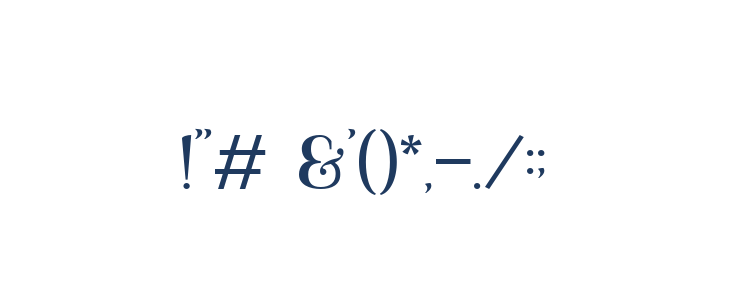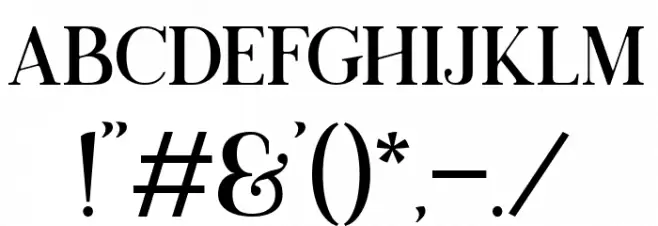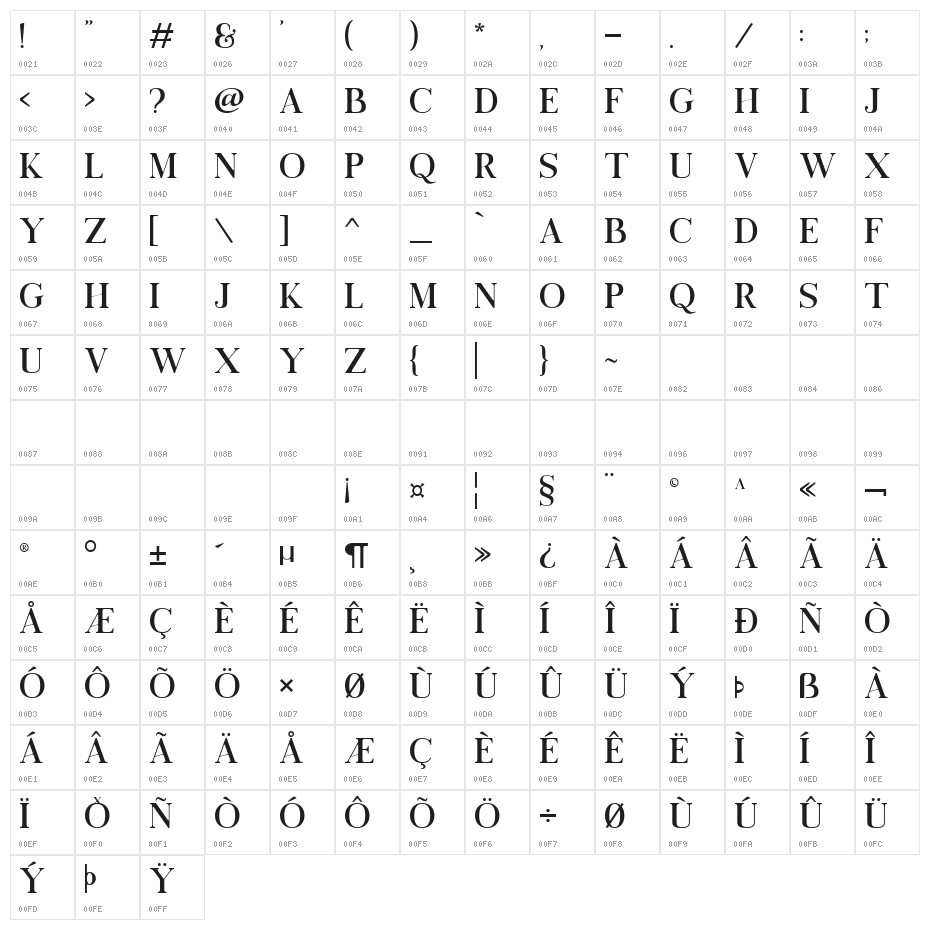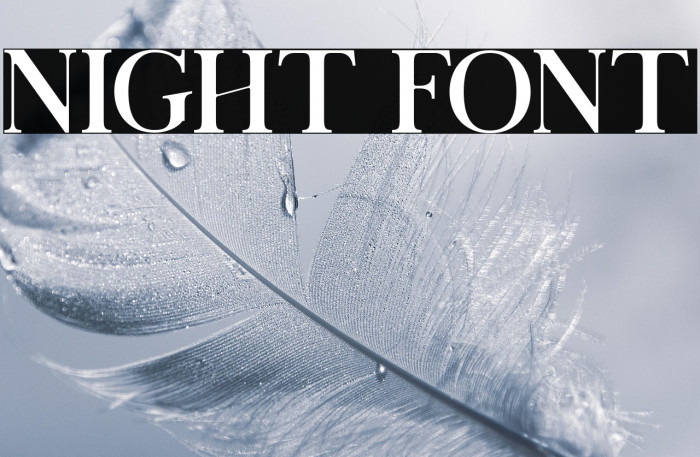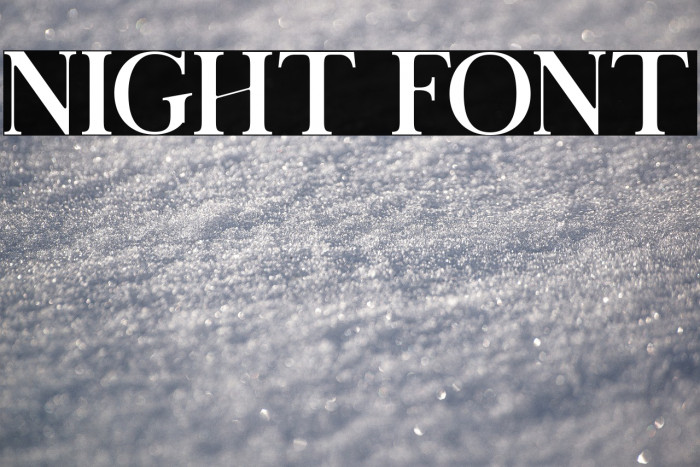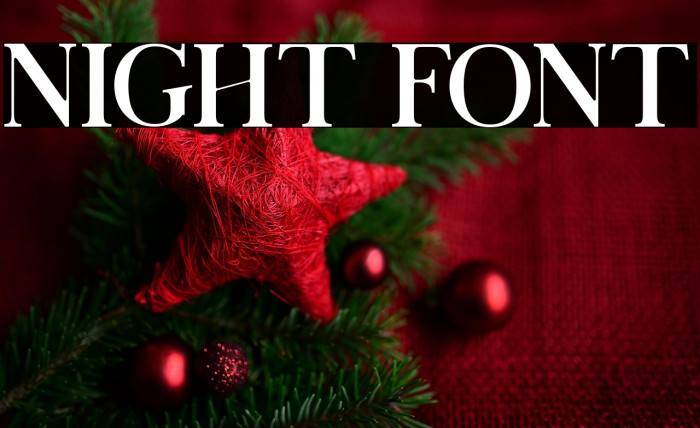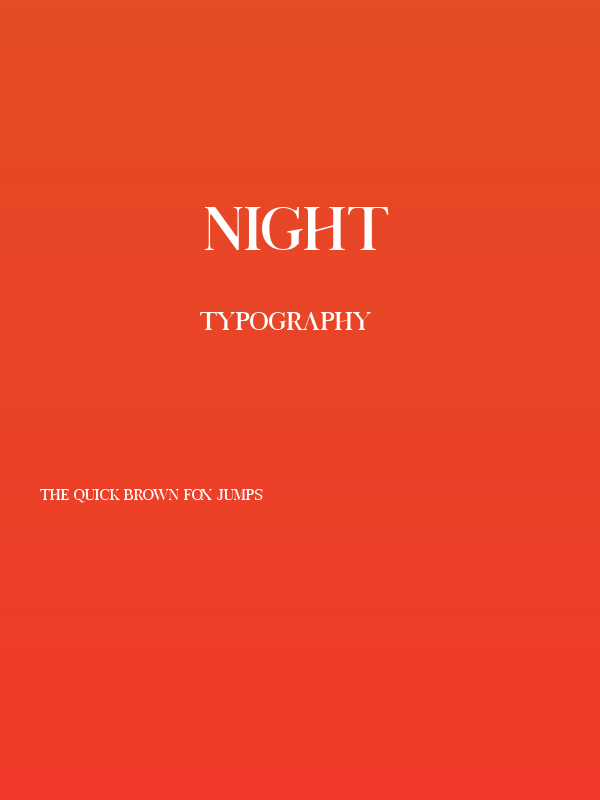
Night Font
Night Description
This font exhibits a classic serif style with elegant and sharp serifs. The characters are well-defined, featuring a high contrast between thick and thin strokes, which adds a sophisticated and timeless appeal. The uppercase letters are bold and commanding, while the lowercase letters maintain a consistent style that complements the overall design. The numerals are clear and easy to read, and the special characters are crafted with the same attention to detail, ensuring a cohesive look across all elements.
A classic serif font with high contrast and elegant serifs from Uncategorized fonts.
- Font: Night
- Proposed Projects: Ideal for editorial design, book covers, formal invitations, and branding projects that require a touch of elegance and tradition.
- Overall Style: Classic